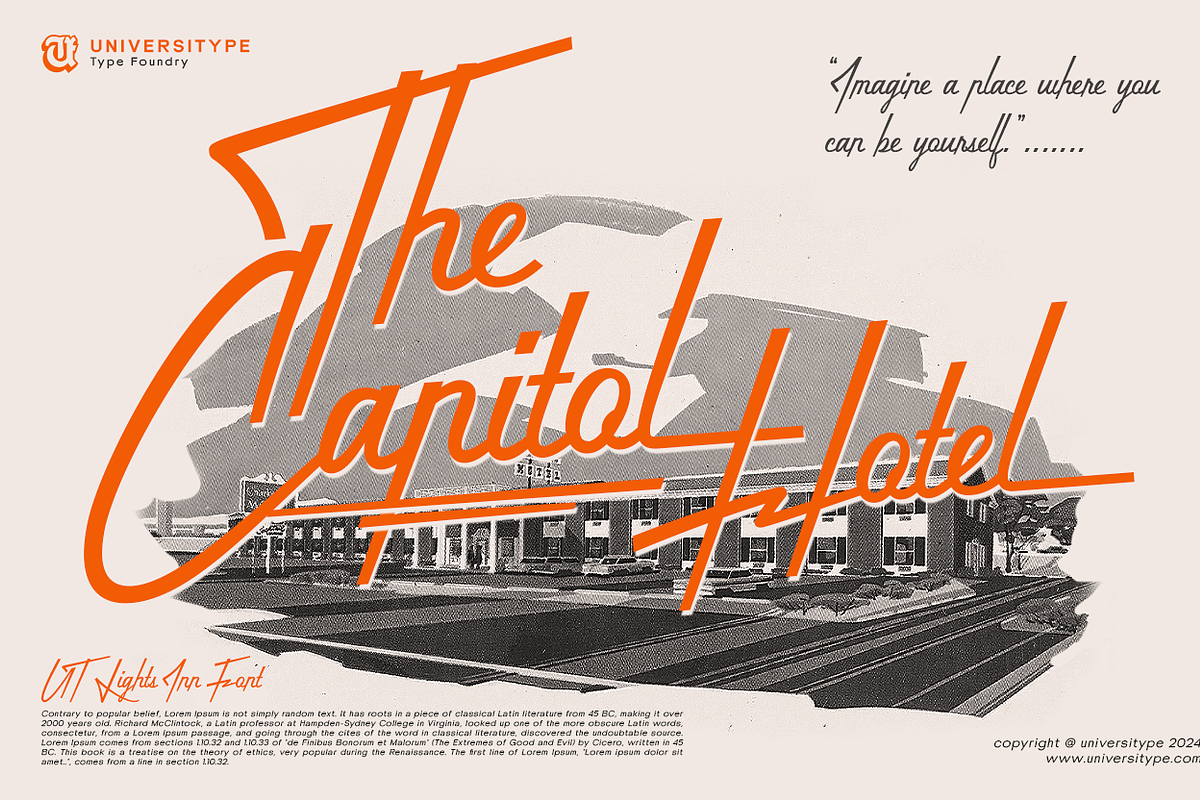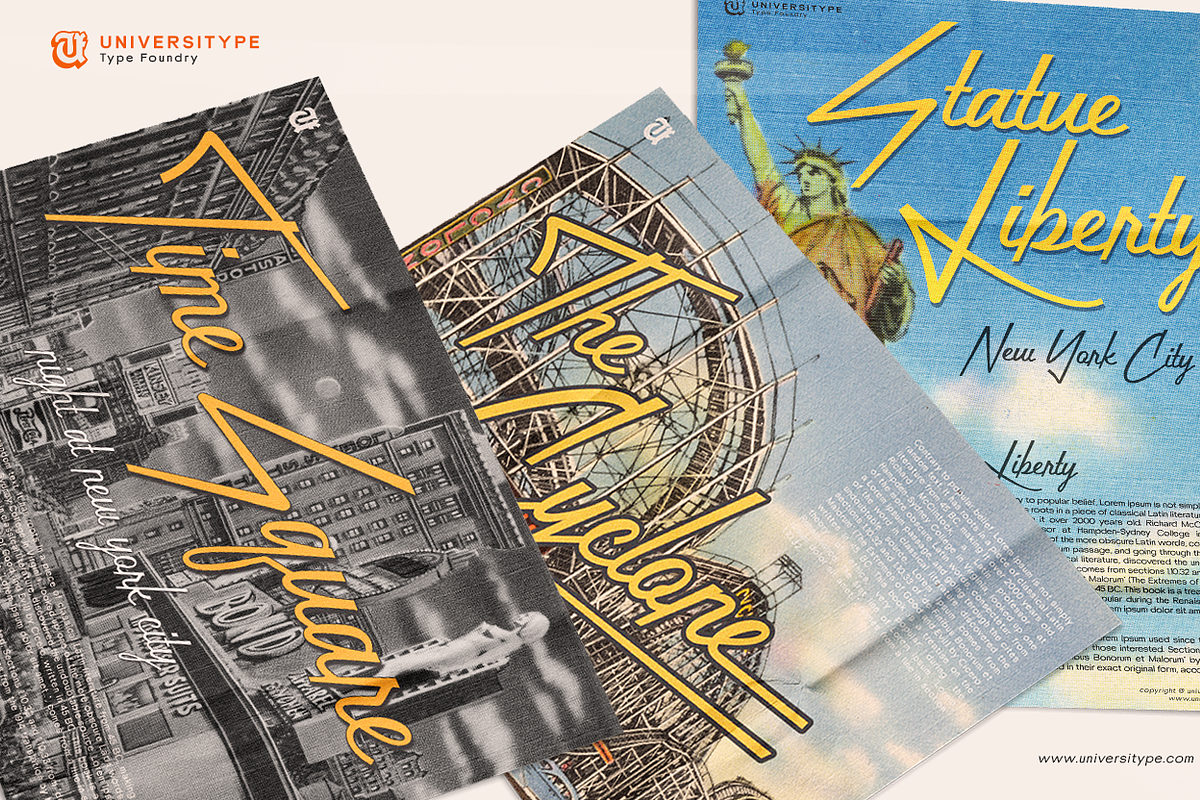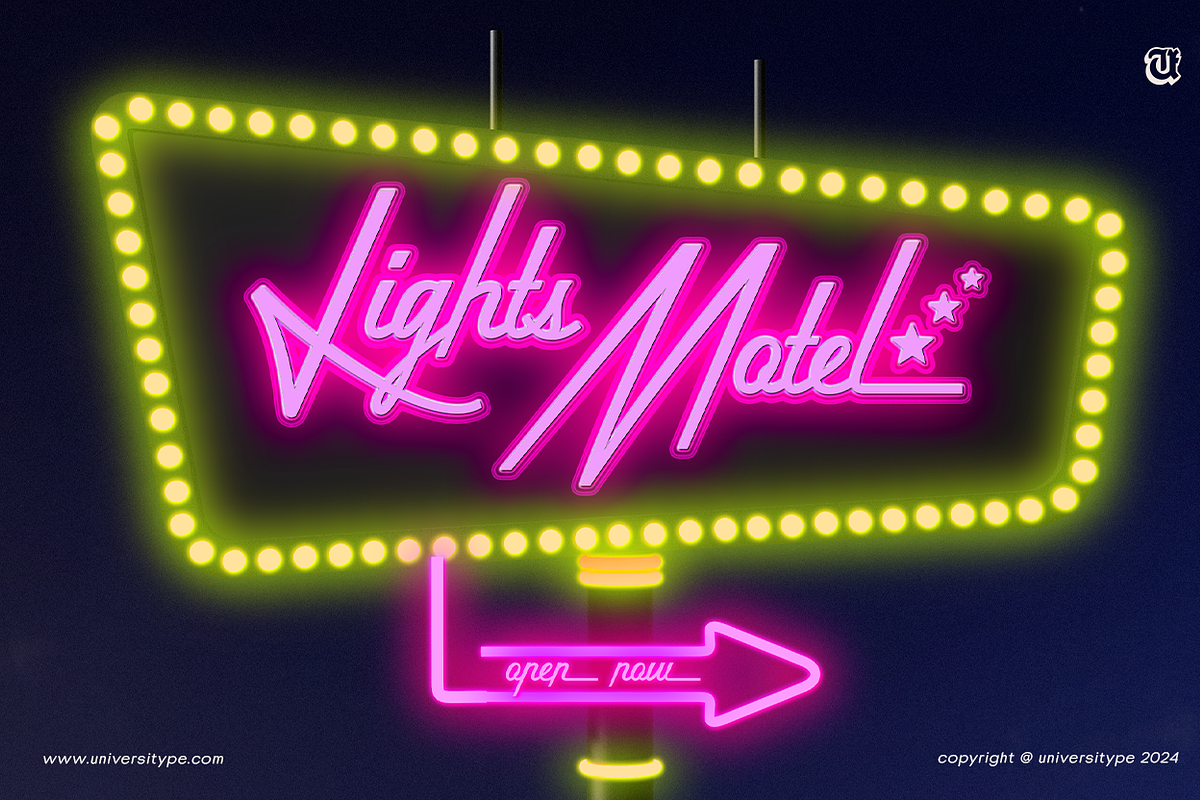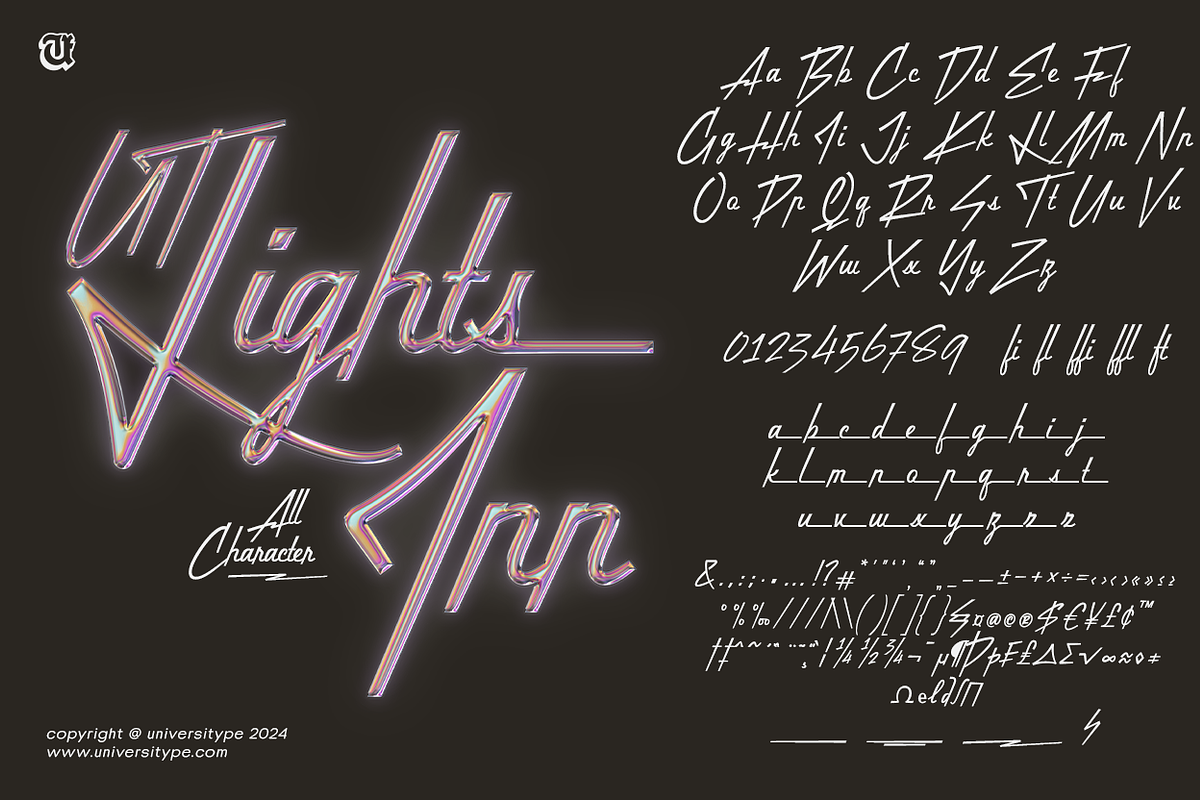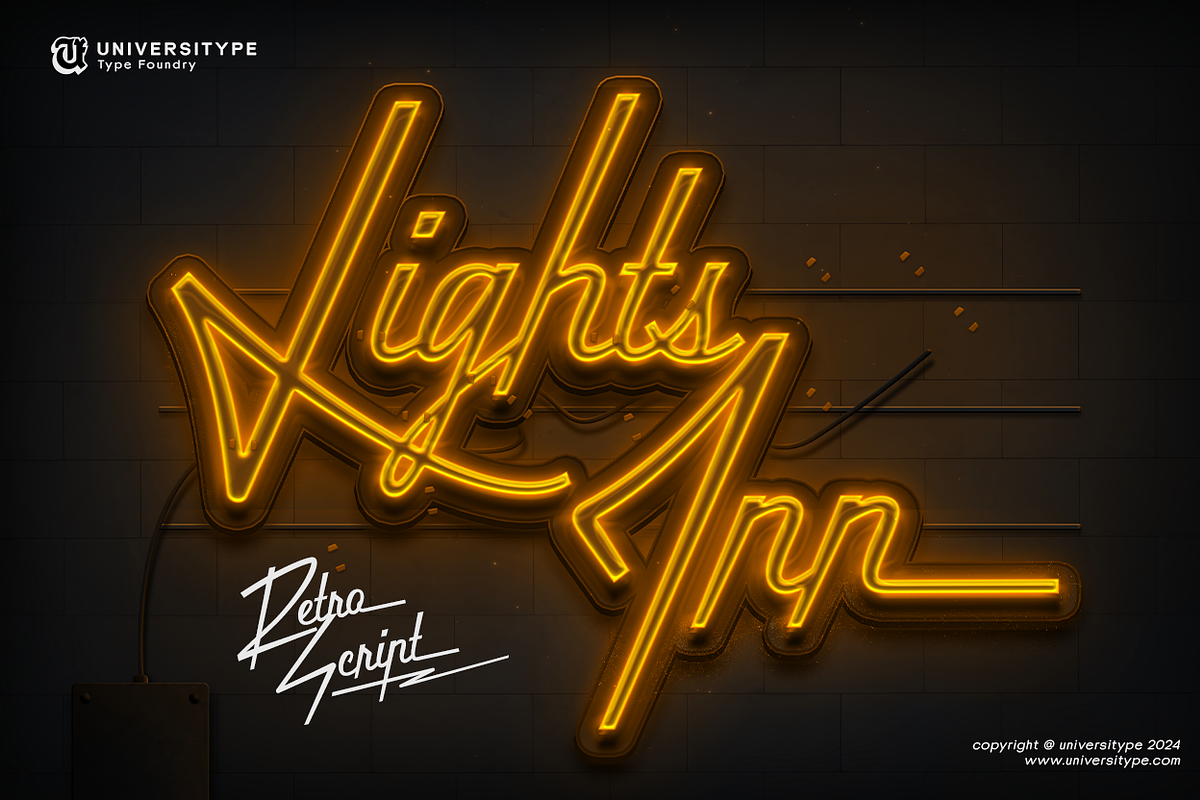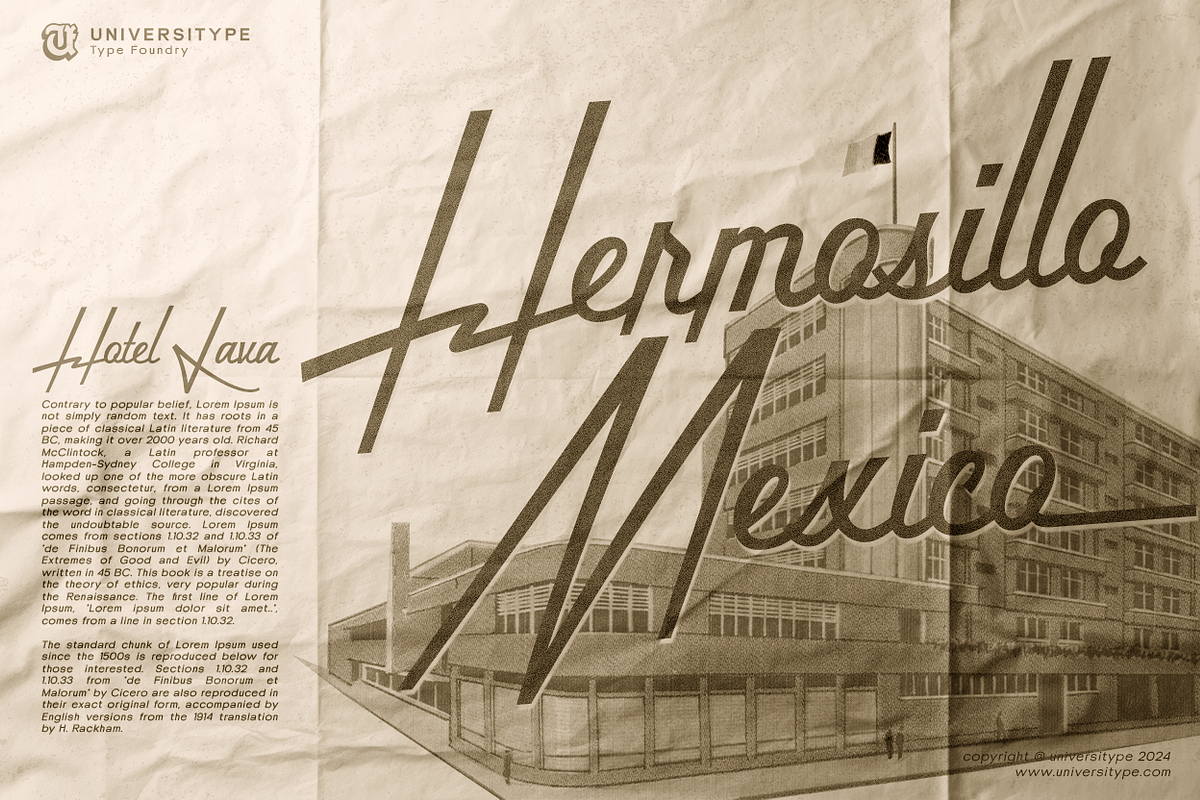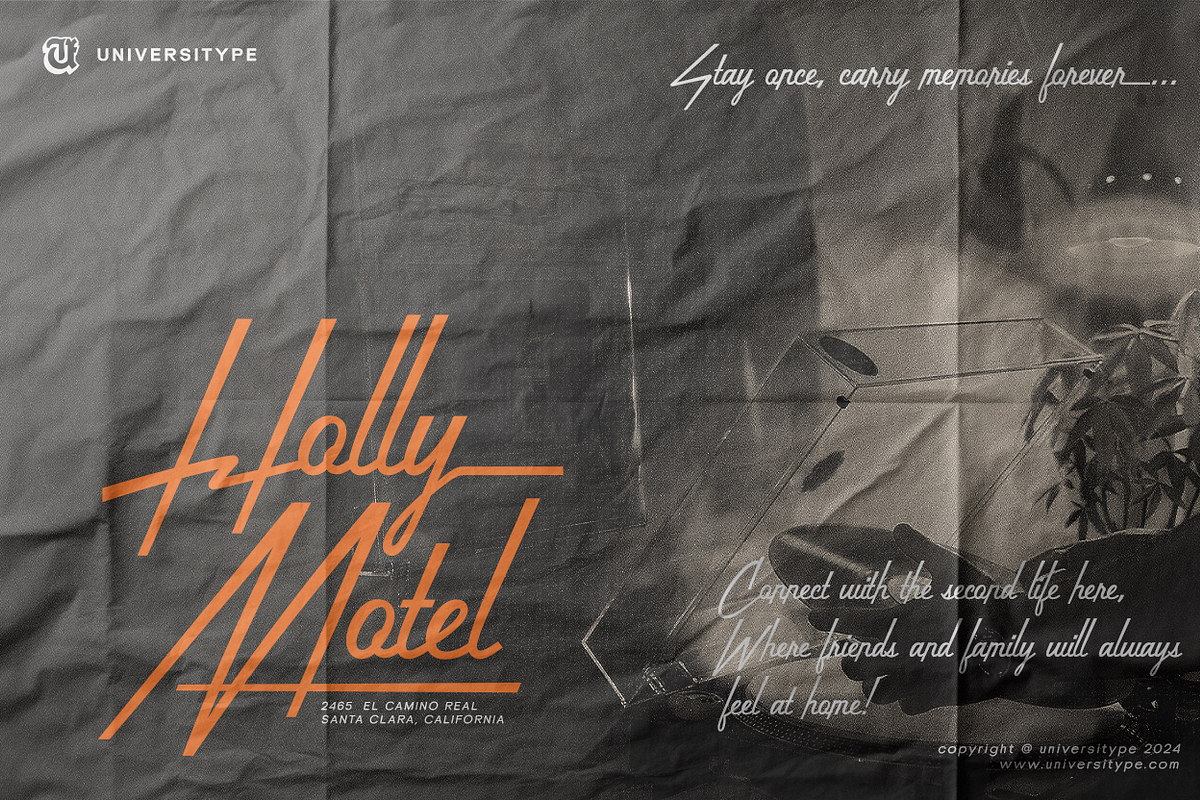
UT Lights Inn - A Retro Script
Transform your design projects with UT Lights Inn, an exceptional font that seamlessly blends timeless elegance with contemporary simplicity. This versatile typeface features clean, refined lines and graceful curves, creating a sophisticated aesthetic that is perfect for a wide array of design applications—from high-end branding to polished editorial layouts.
With an impressive library of 429 glyphs, UT Lights Inn offers a comprehensive selection of characters and symbols to enhance every aspect of your typographic work. Whether you’re crafting a striking headline, an elegant invitation, or a compelling website, this font provides the flexibility and variety you need to achieve stunning results.
UT Lights Inn goes beyond the basics with its inclusion of Stylistic Alternates. These additional design options allow you to personalize and elevate your text, giving you the ability to tailor the font to suit your specific needs and preferences. This feature is ideal for adding a distinctive flair to your projects, making your designs stand out with a touch of individuality.
Perfect for designers and creatives who seek a font that balances sophistication with modernity, UT Lights Inn is more than just a typeface—it’s a powerful tool for bringing your vision to life. Make a lasting impression with every design and let UT Lights Inn elevate your work to new heights. Don’t miss out on the opportunity to own this essential font and enhance your creative toolkit.